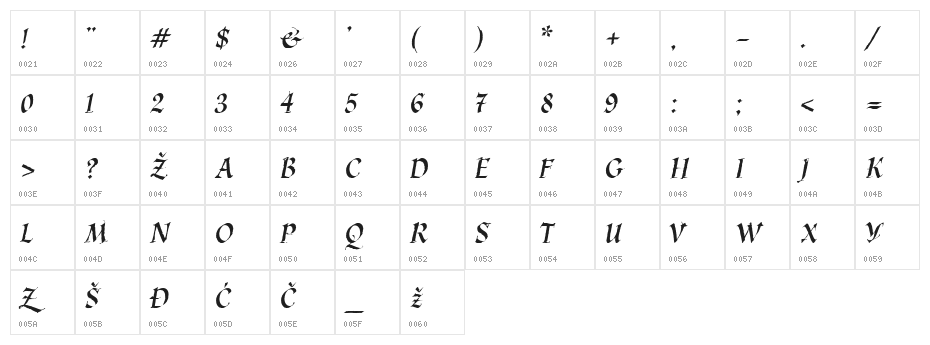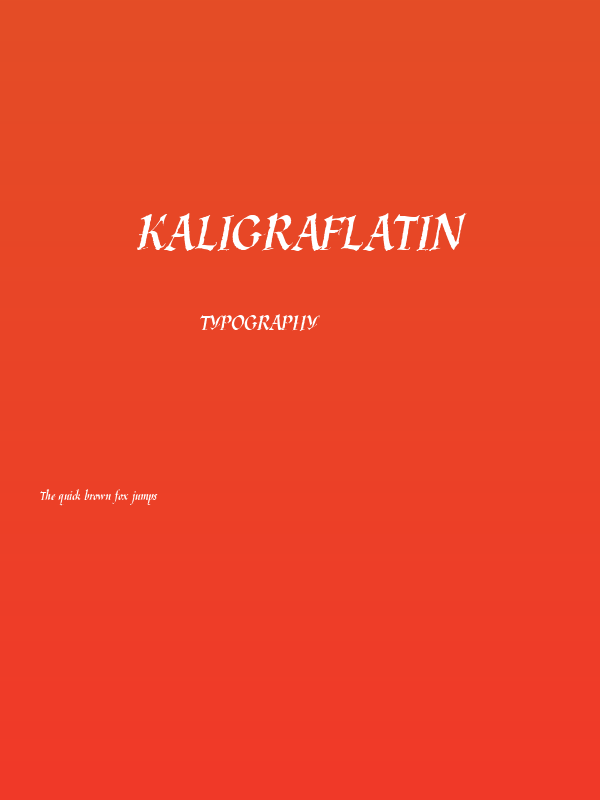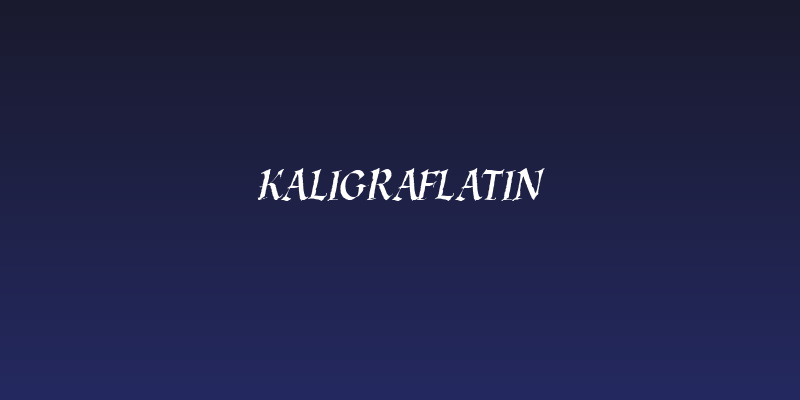
KaligrafLatin Font
KaligrafLatin Description
This font exhibits a classic calligraphic style with a strong emphasis on elegant, flowing strokes. The characters are designed with a high contrast between thick and thin lines, giving it a dynamic and sophisticated appearance. The uppercase letters are bold and commanding, while the lowercase letters maintain a graceful and fluid form. Numbers and special characters are crafted with the same attention to detail, ensuring a cohesive look across all elements. The overall design is reminiscent of traditional handwritten scripts, making it suitable for projects that require a touch of elegance and formality.